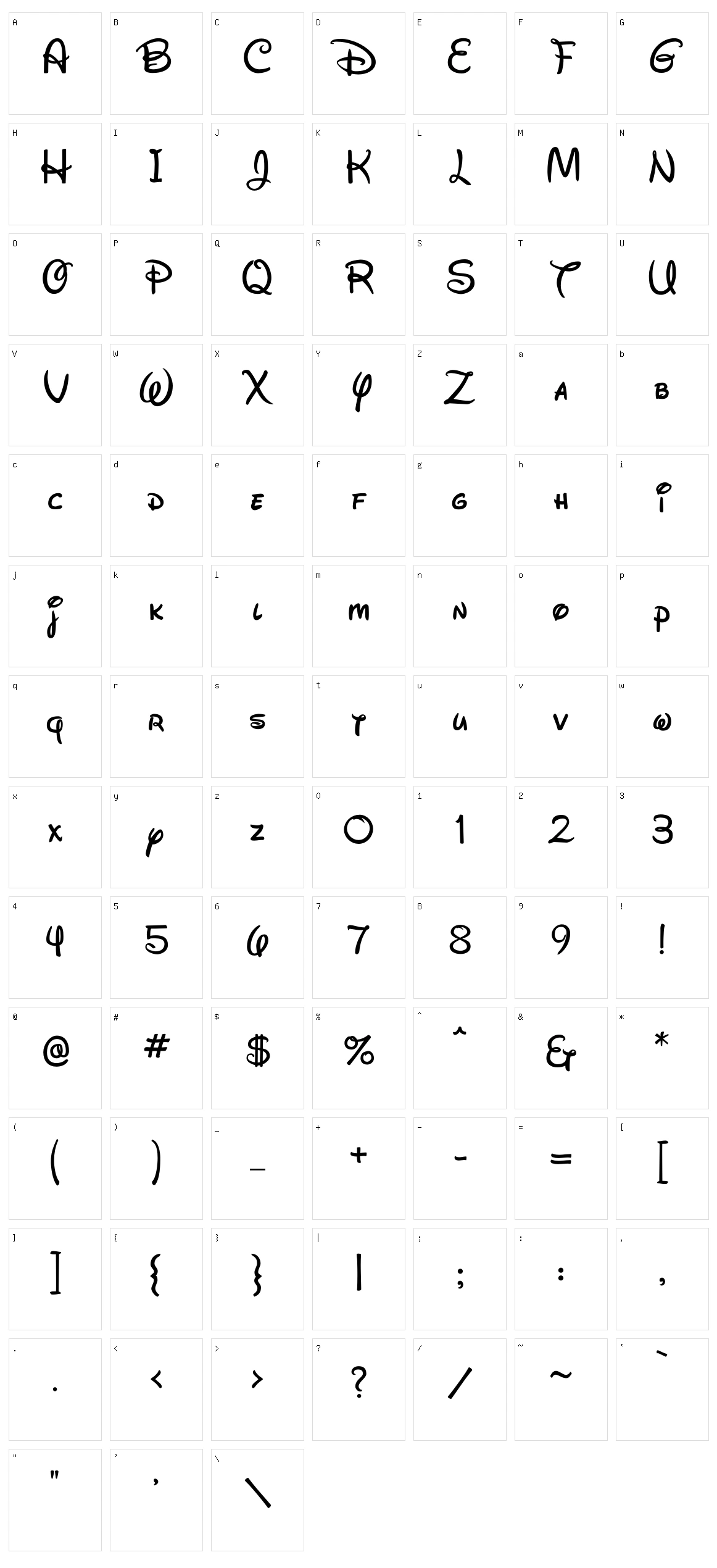
New name, reorganization, and minor tweaking. Addition of some OpenType features described below.
SPACING NOTES
-------------
The lowercase "i" and "j" have presented a spacing challenge due to their extraordinarily large dots. They have been spaced so that they fit in well with other lowercase characters. The problem with this narrow spacing is that the dot may overlap a preceding capital. While this overlap has been compensated for with kerning pairs, not all applications support kerning. So, I've provided a solution for situations in which overlap is undesired but kerning is not an option.
(Note that not every capital requires pairing with these alternate versions -- for instance, the pair "Di" looks fine without any modification or kerning.)
LIGATURES
---------
The following ligatures are available. In OpenType-aware applications, simply typing the letter combinations will activate the ligature (provided that the ligatures feature is active). In non-OpenType-aware applications, the Unicode address can be used (see below).
Fi (U+F638)
Gi (U+F639)
oOo (U+F63A) - forms a solid tri-circle design
OoO (U+F63B) - forms a hollow tri-circle design
WaltDisney (U+F63C) - signs a properly-spaced Waltograph
ALTERNATES
----------
The following alternate characters are available. In OpenType-aware applications, these are accessed using the stylistic alternates feature. In non-OpenType-aware applications, the Unicode address can be used (see below).
a (U+F634)
i (U+2020)
j (U+2021)
r (U+F635)
I (U+F636)
& (U+F637)
Waltograph was inspired by letter designs used by the Walt Disney Company for corporate logos and theme park graphics. The following individuals have contributed to its production: